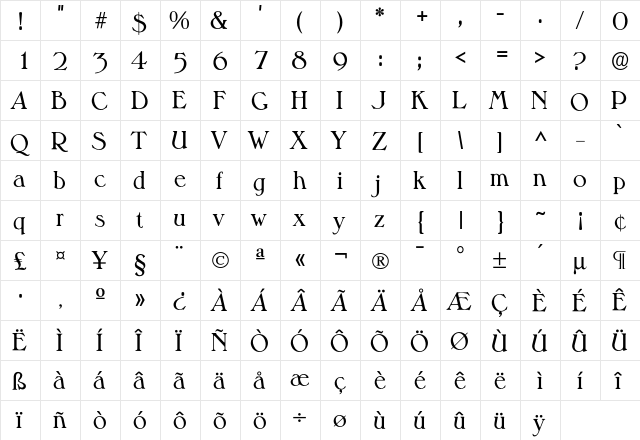
Melborne-Medium Regular
Design Context for Melborne-Medium Typeface
Melborne-Medium is a composed and adaptable typeface that performs quietly and consistently across a wide range of design contexts.